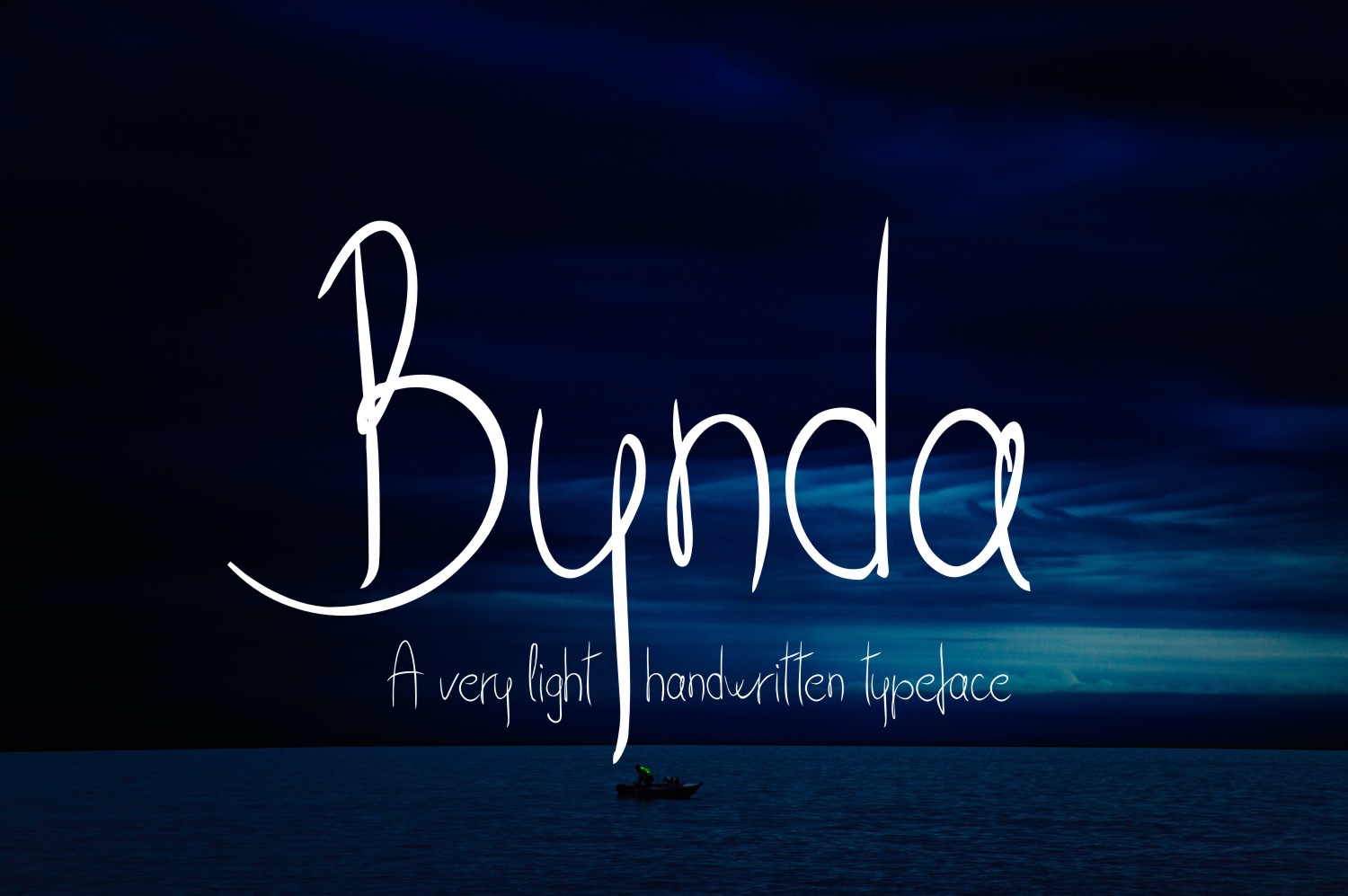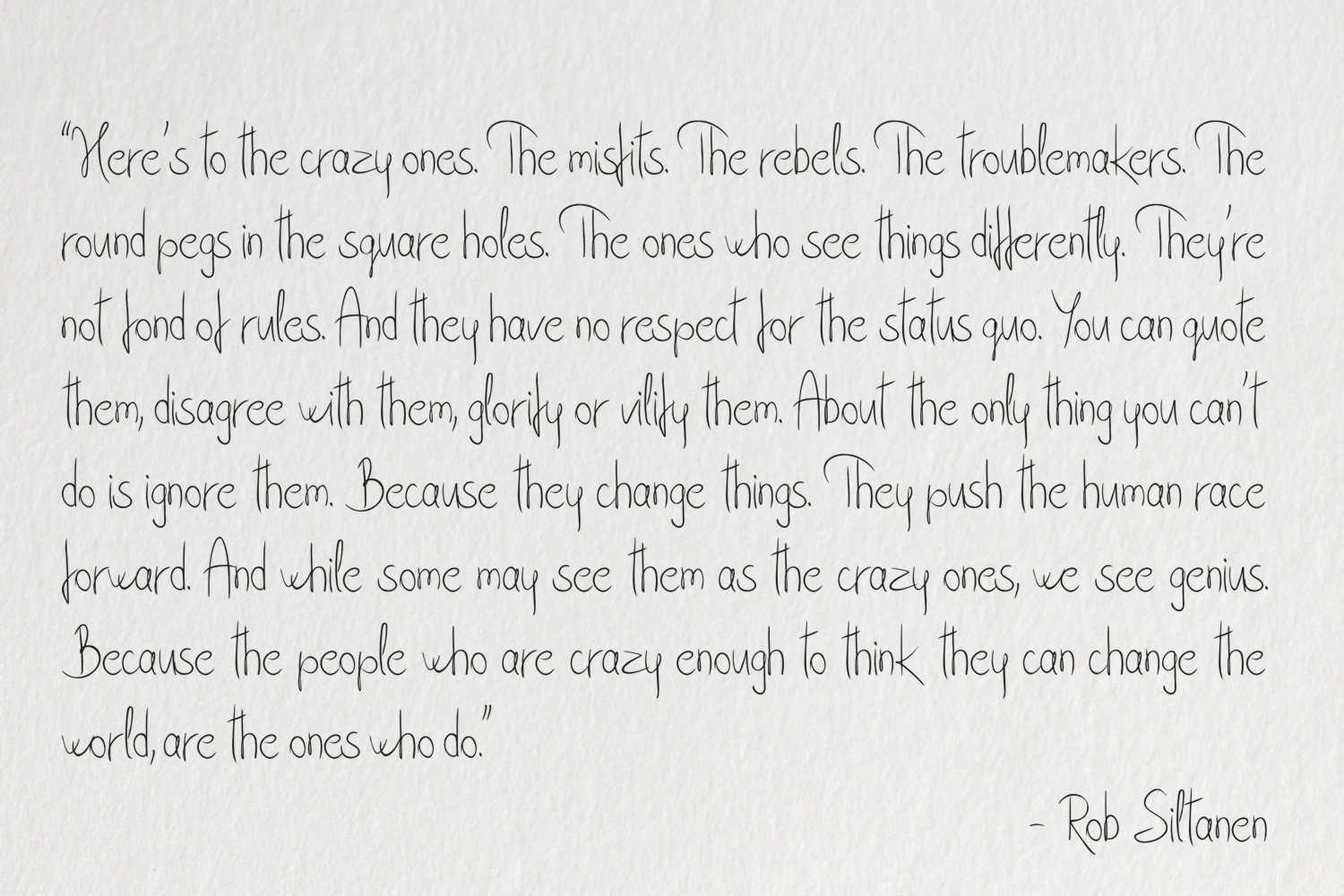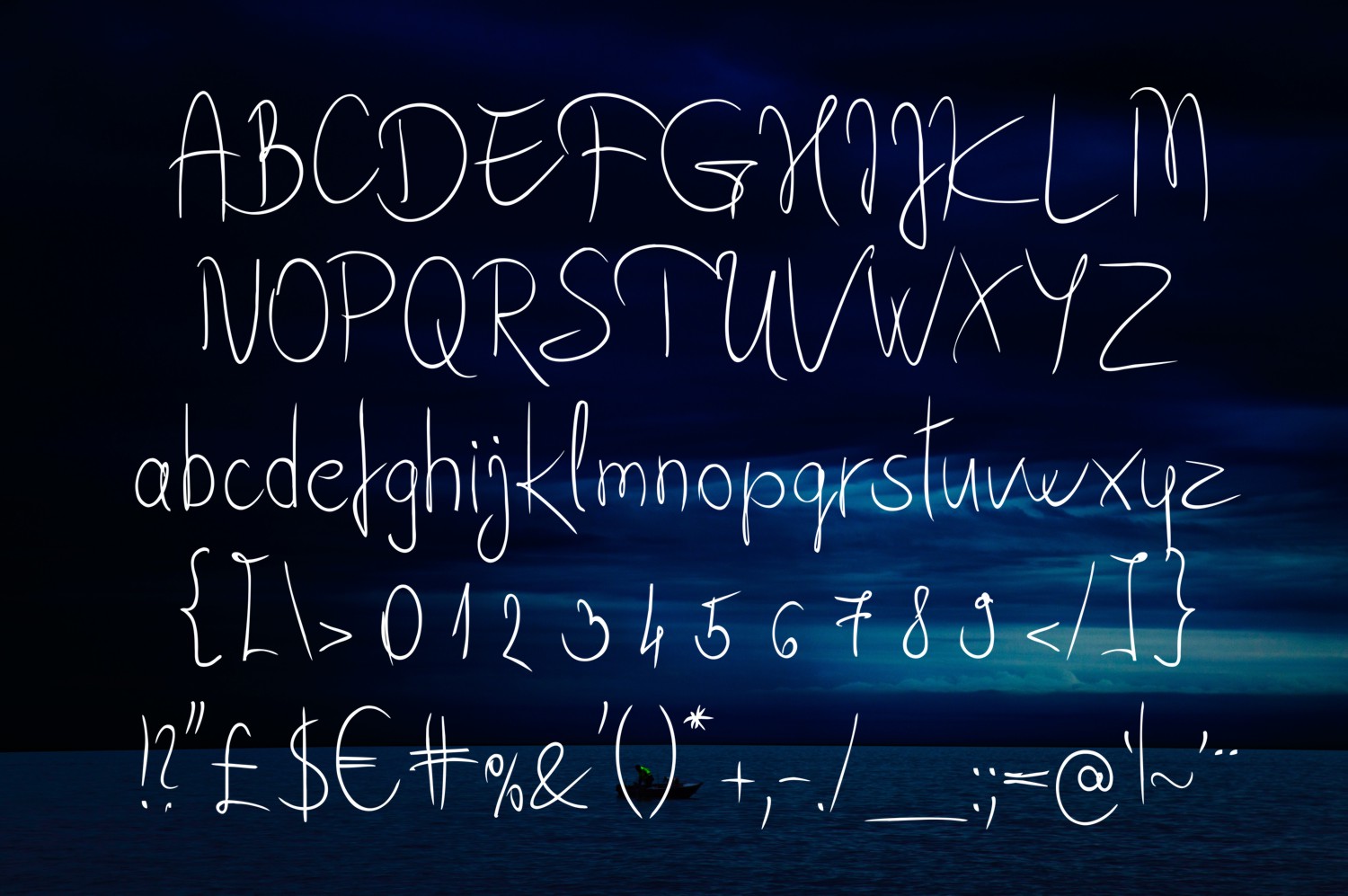
Bynda Font
About Bynda Font
Bynda is a very light hand written typeface, carefully crafted to look just like casually done handwriting. Bynda is perfect for a number of projects that need an added touch of delicacy and detail.